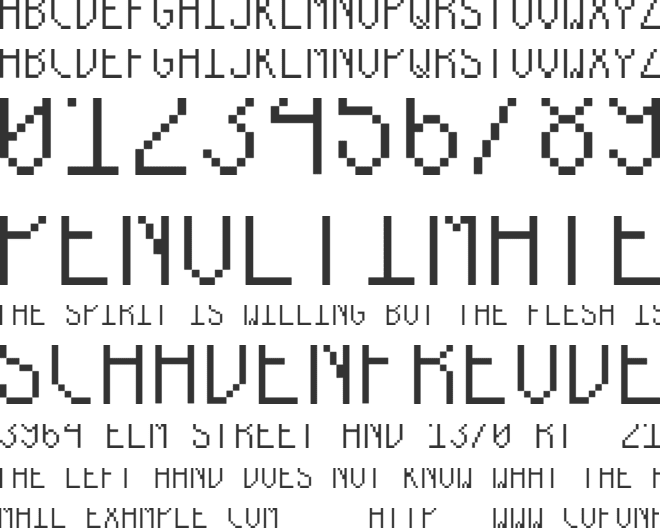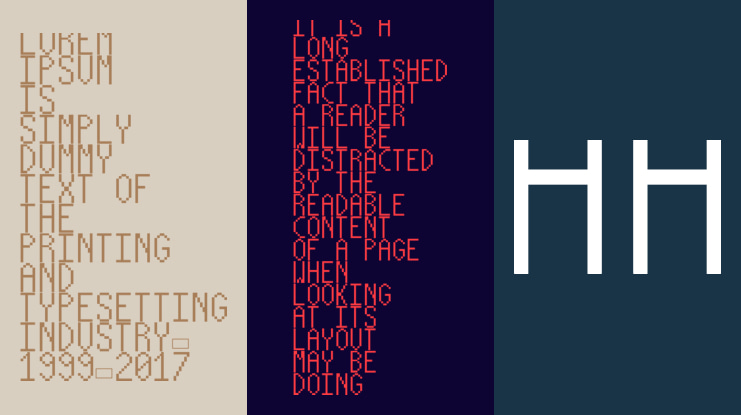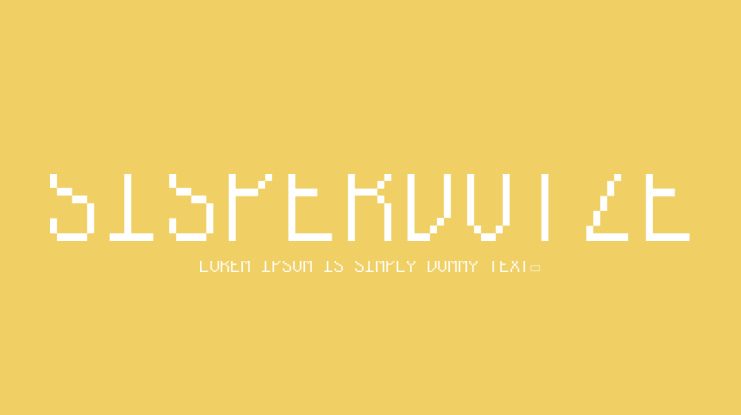
Sisperdotze Font
This font was produced during the Fonts.txt workshop, which took place in the 7th of November 2014 at BAU Barcelona. It was collectively designed by Kira Riera Contijoch, María Florencia Fernández, Maria Luisa Jimenez, Irene Farré Márquez, Óscar Pereira and Dario Trapasso.